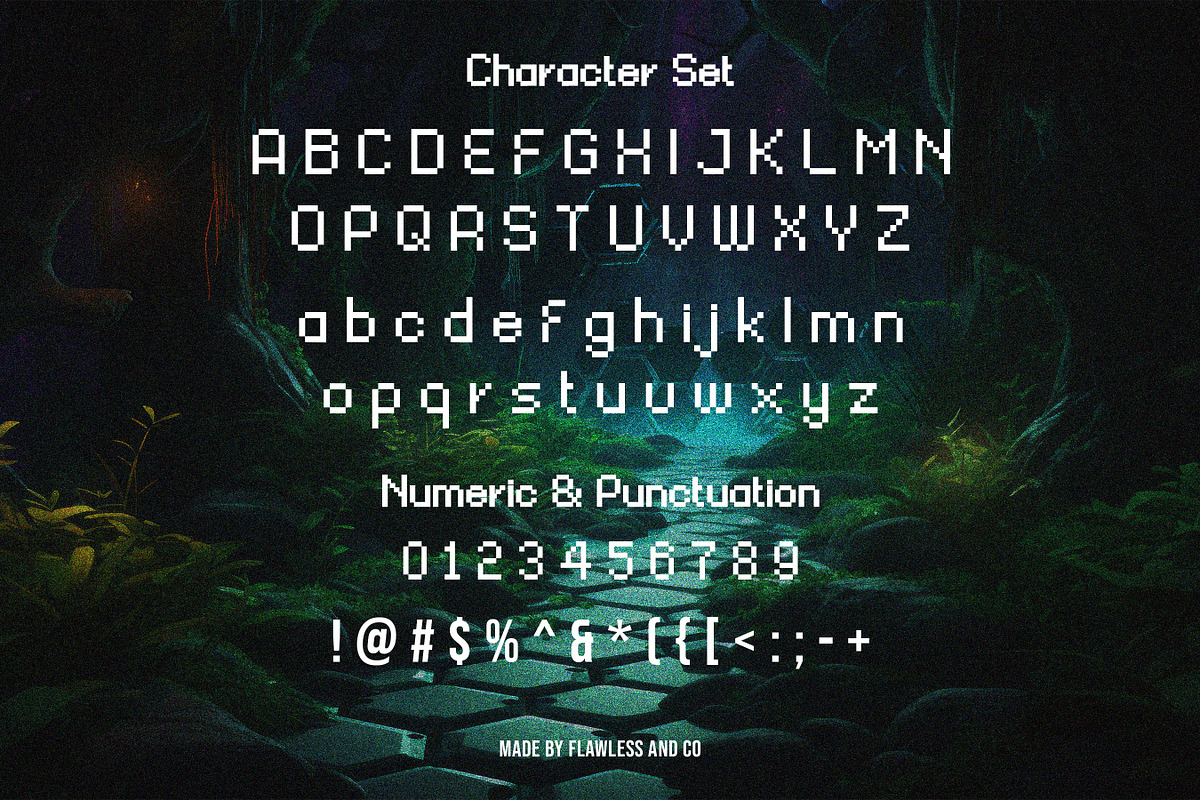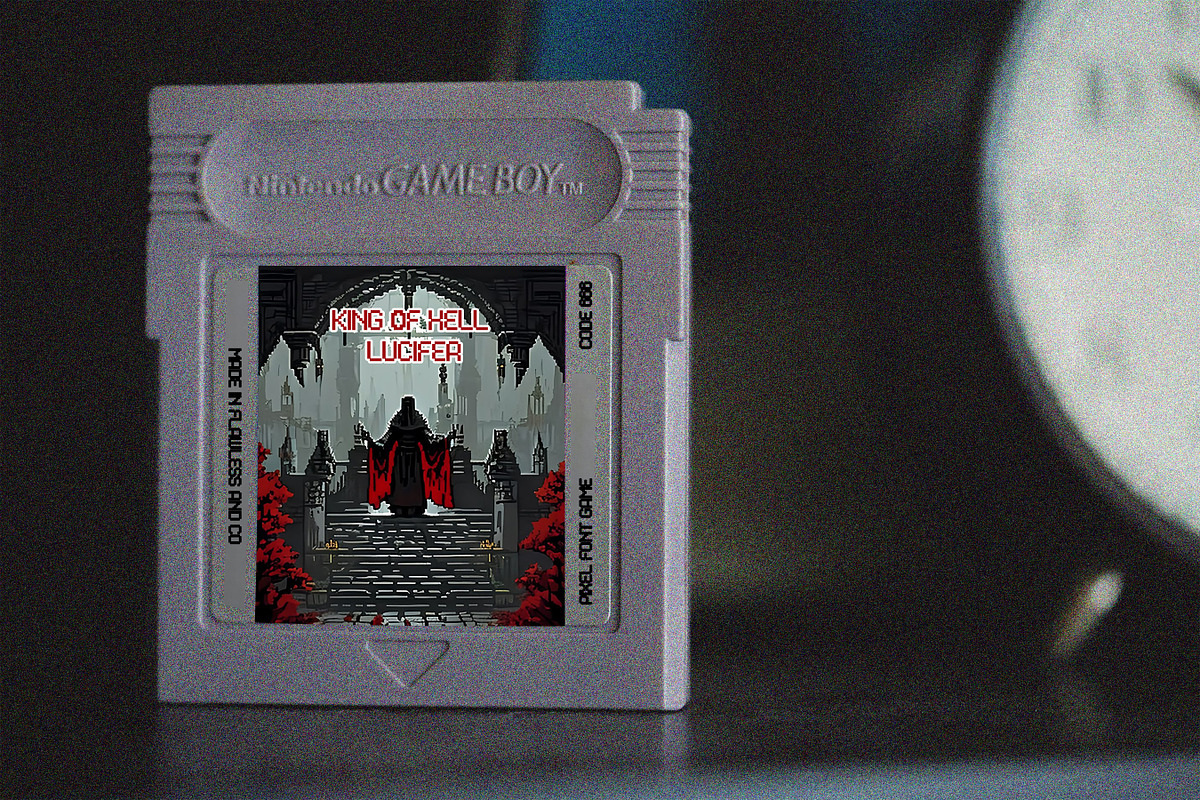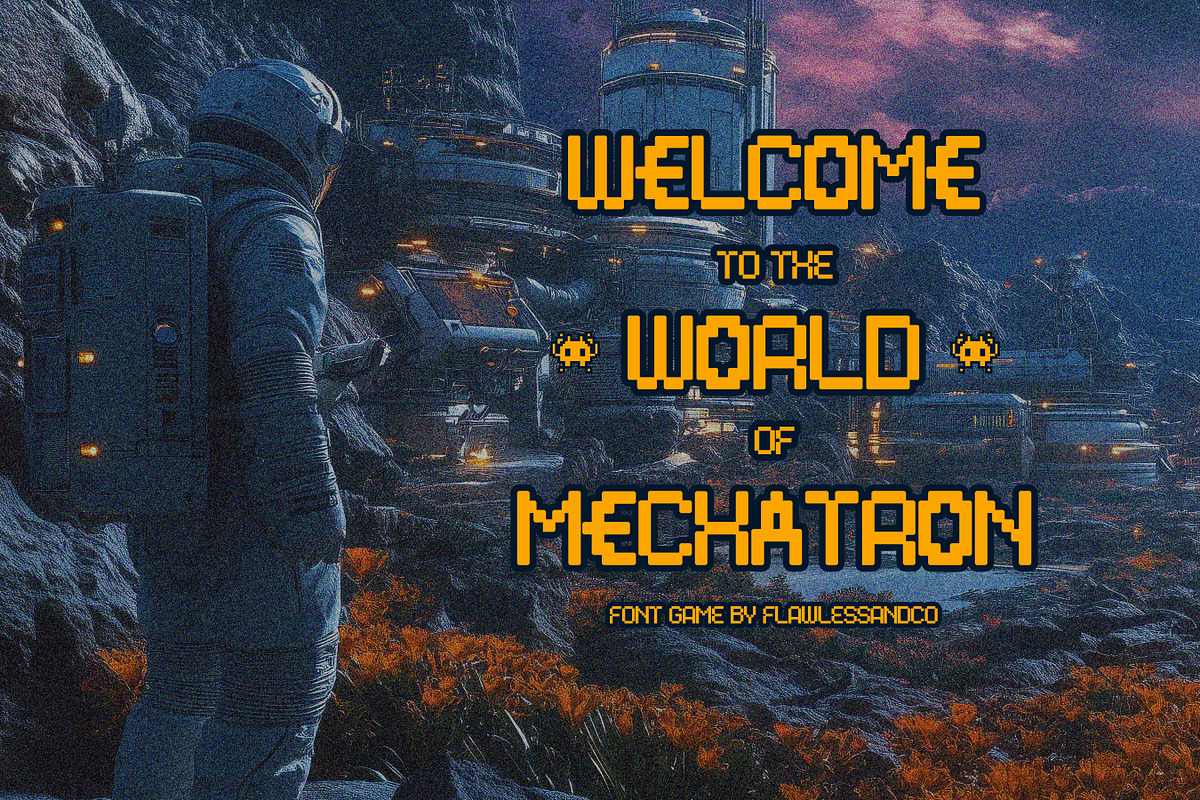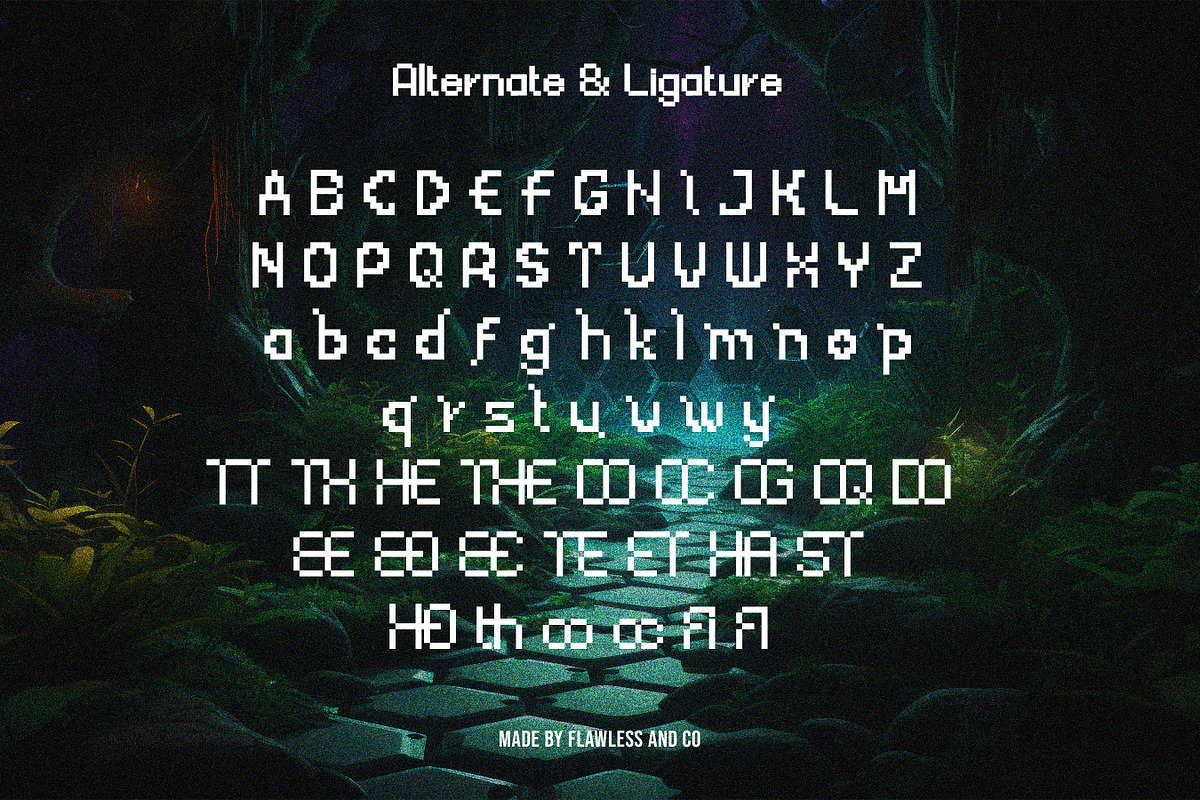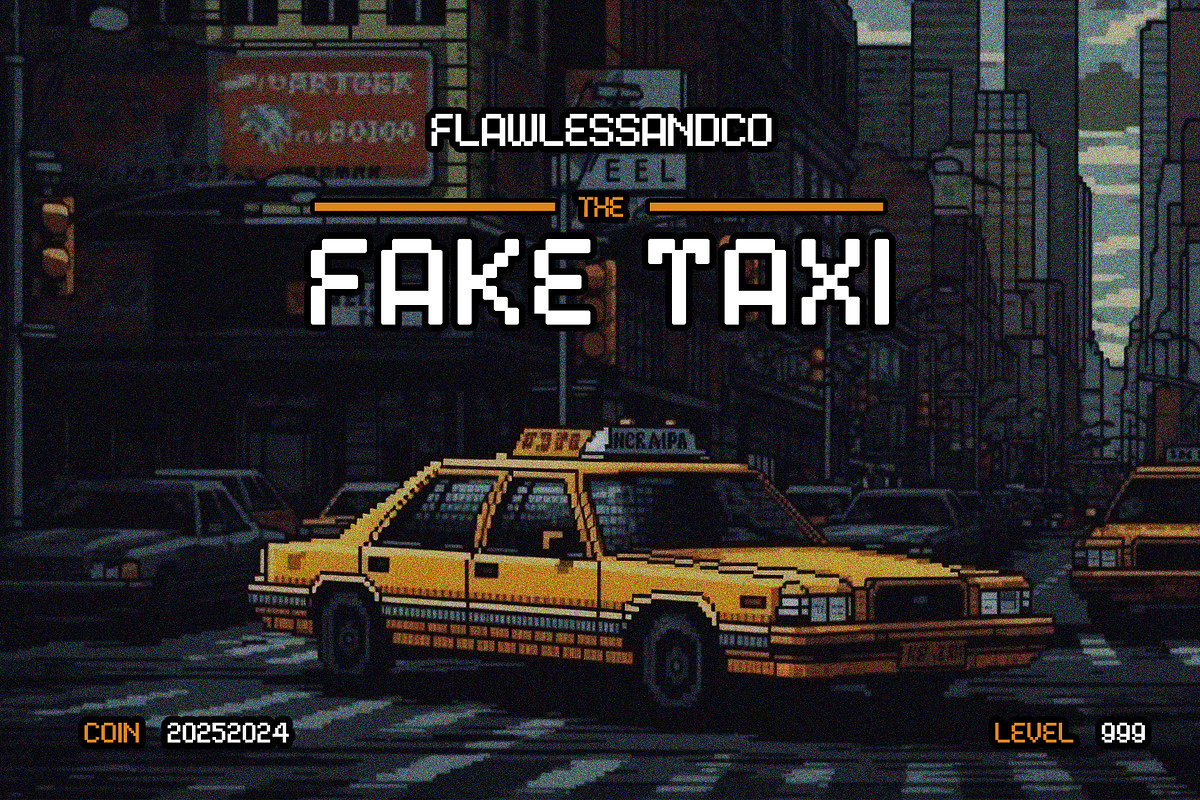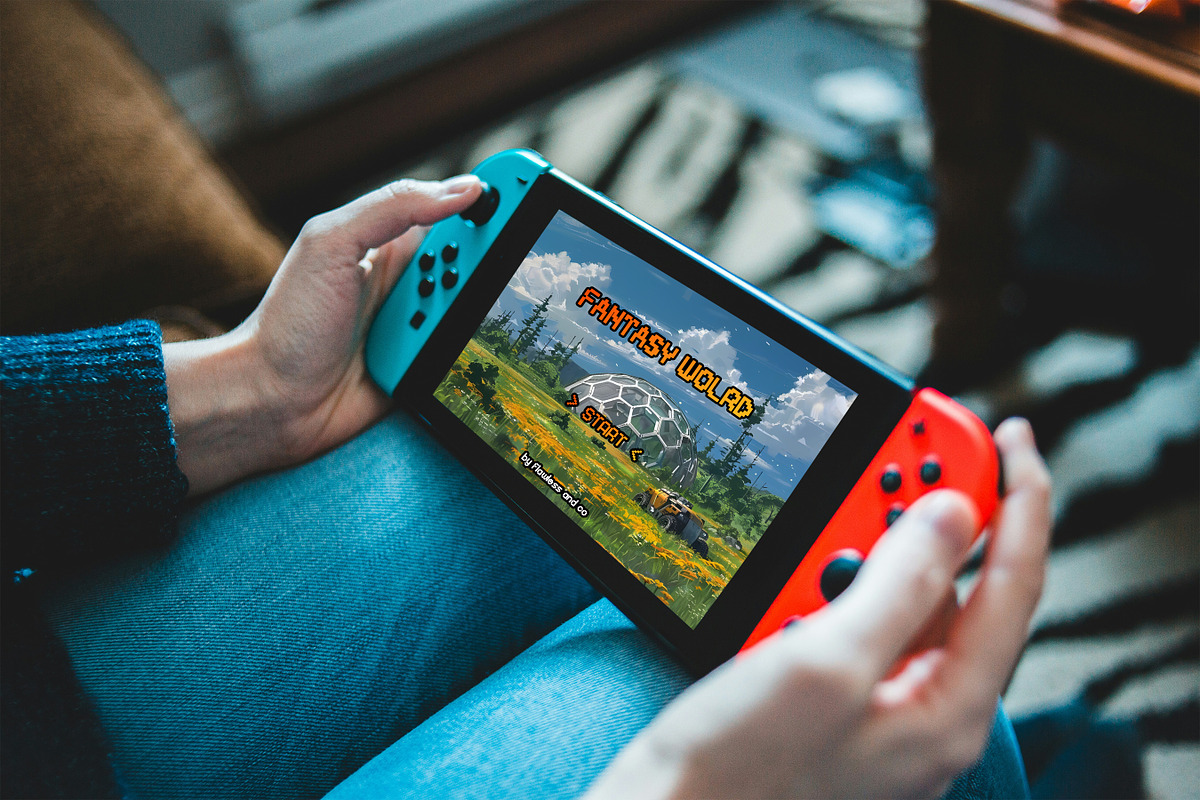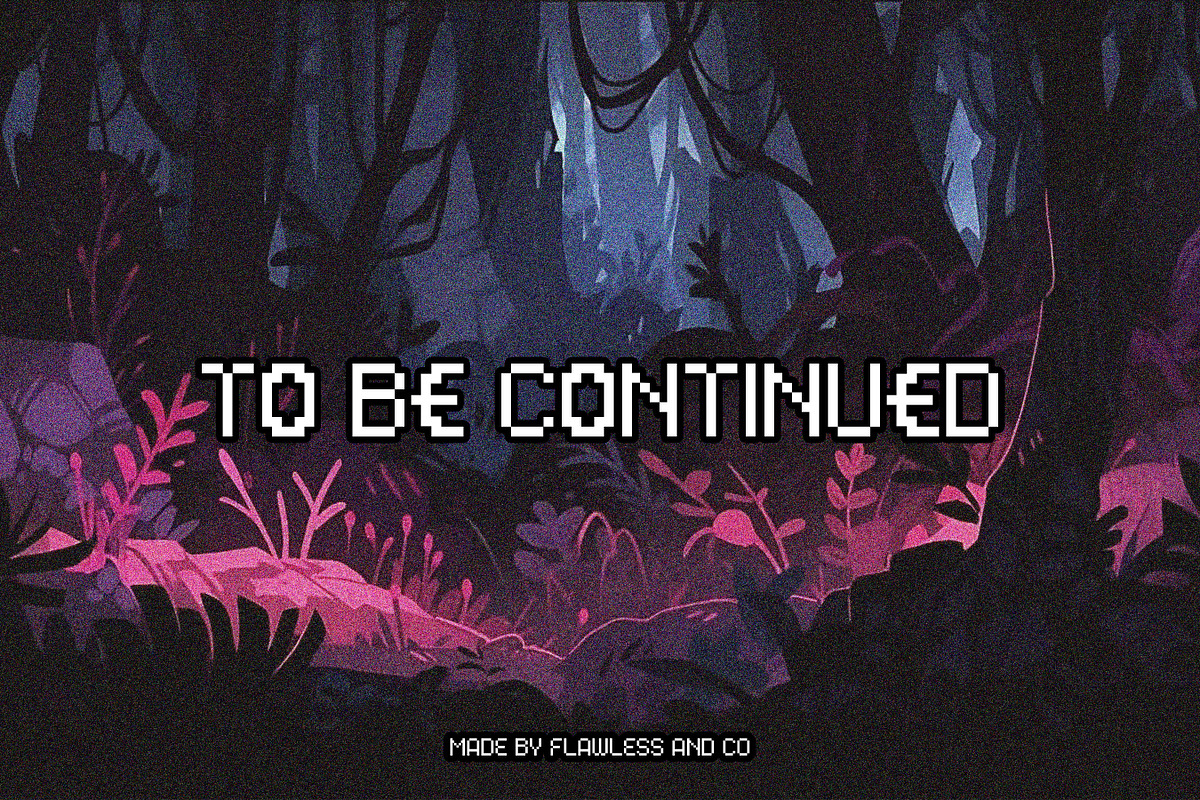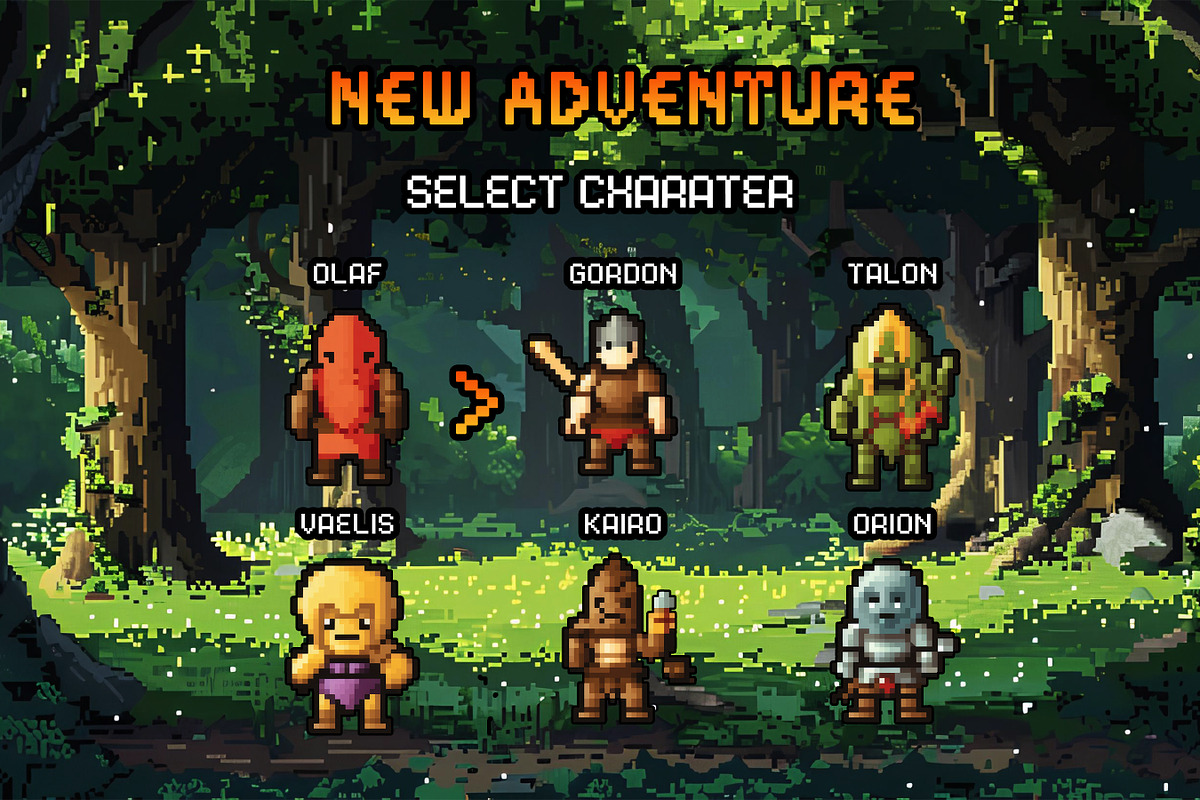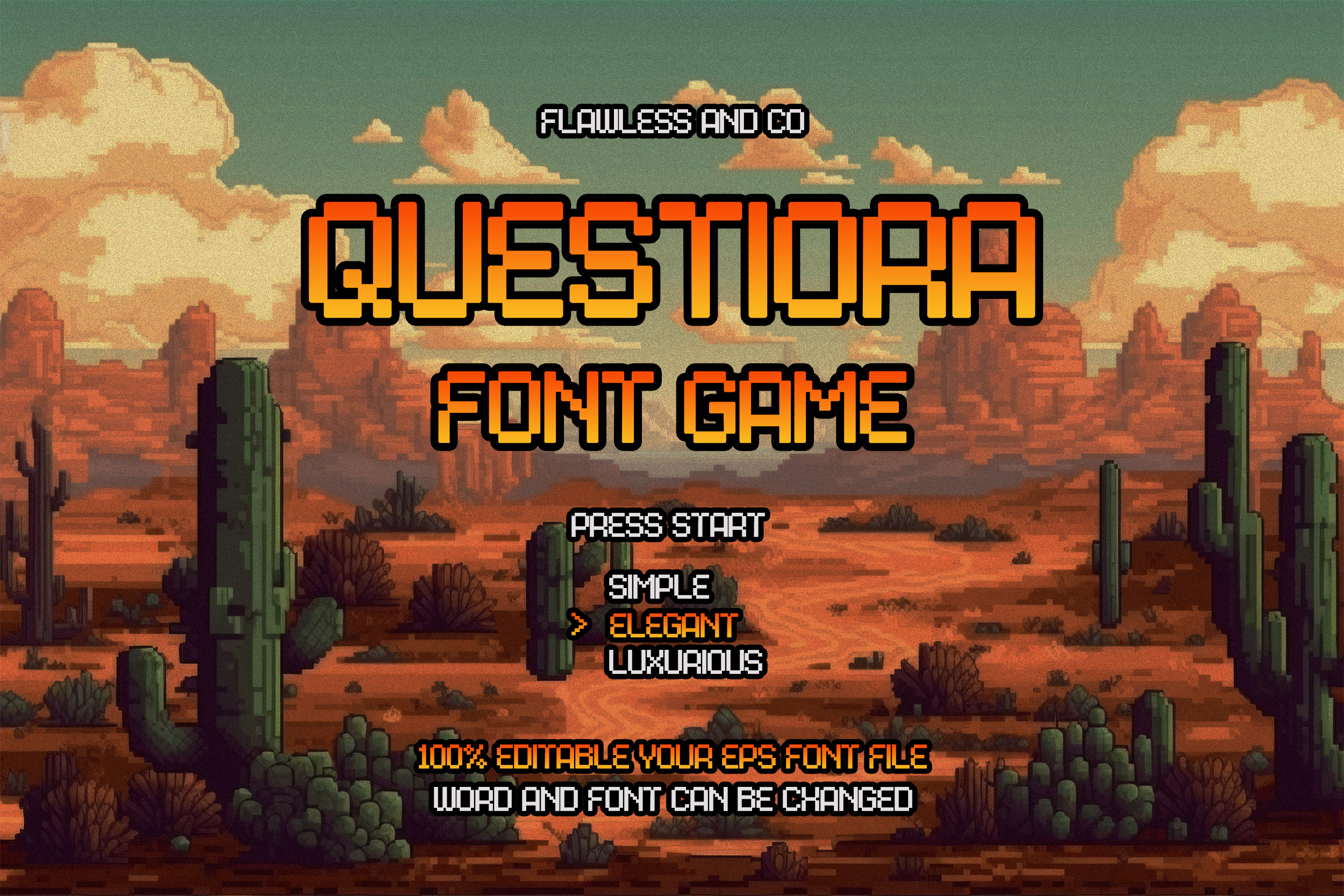
Questiora - Pixel Game Font
Questiora is a bold and dynamic game font designed to bring excitement and adventure to your designs. Its strong and stylish letterforms make it suitable for game titles, esports logos, streaming graphics, posters, and digital branding. Elevate your gaming aesthetics with the power of Questiora!
Multilingual Uppercase alphabet A-Z Lowercase alphabet a-z Numbers 0-9 Some punctuation